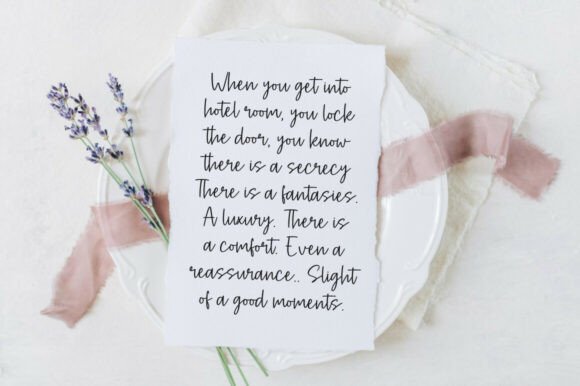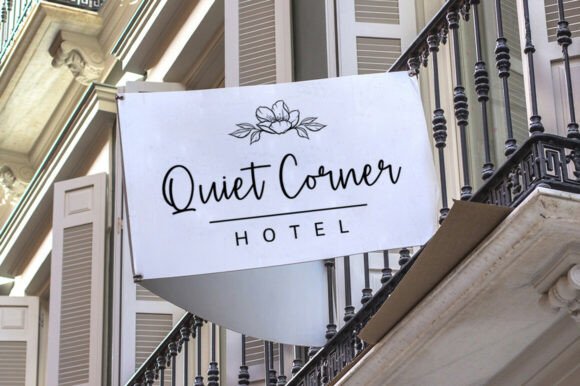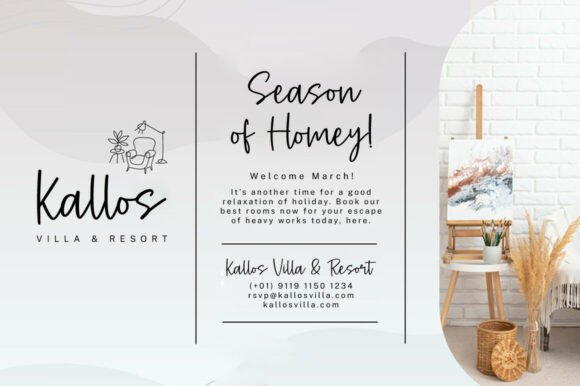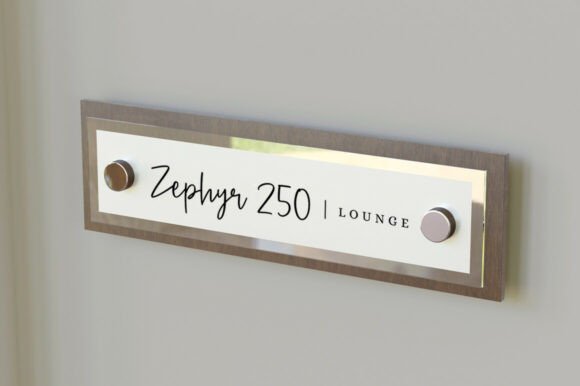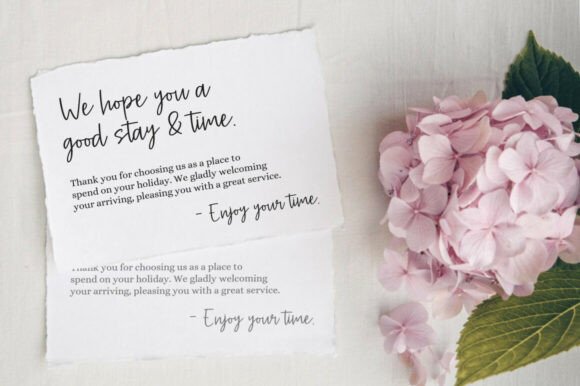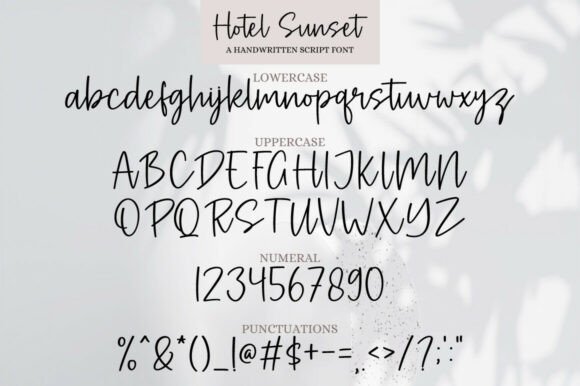
Introduction to Hotel Sunset Font
Hotel Sunset is a delicate and refined script font that emanates sophistication and elegance.
Fall in love with its incredibly versatile style and use it to create gorgeous wedding invitations, beautiful stationary art, eye-catching social media posts, and much more .
Key Features of Hotel Sunset Font
Why Choose Hotel Sunset Font?
Hotel Sunset Font offers exceptional quality and versatility, making it a valuable addition to your design toolkit. Whether you’re creating for personal projects or commercial use, Hotel Sunset Font delivers professional results.